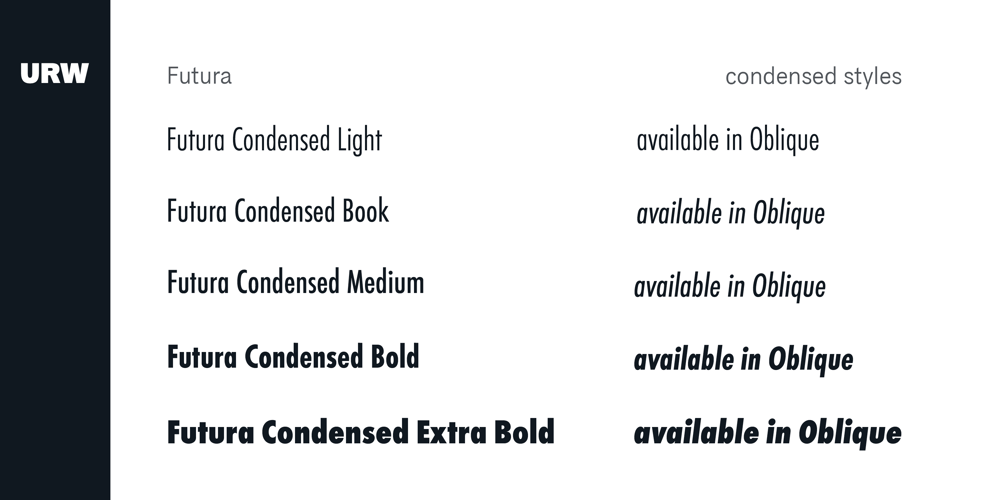
Futura
Futura font
Futura Font Family was designed by Paul Renner and published by URW Type Foundry. Futura contains 39 styles and family package options. Futura is THE prototype of a geometric or constructed linear sans serif and the font most commonly font of its kind used to date. Futura, very much influenced by the Bauhaus movement in Germany, was designed in 1927 by Paul Renner. Although being around for almost 90 years, Futura seems eternally young and fresh which also explains its continuous popularity with designers and typographers. Futura simply means efficiency and functionality documented by both its many usages as corporate type (e.g. Volkswagen, formerly IKEA, Vuitton, Shell, formerly HP, SMA and many more) as well as in various famous film projects (e.g. Kubrick, Anderson etc.). Futura’s iconic status was probably established when it walked on the moon with the Apollo 11 crew in 1969. It was used for the lettering of the plaque that was left up there.